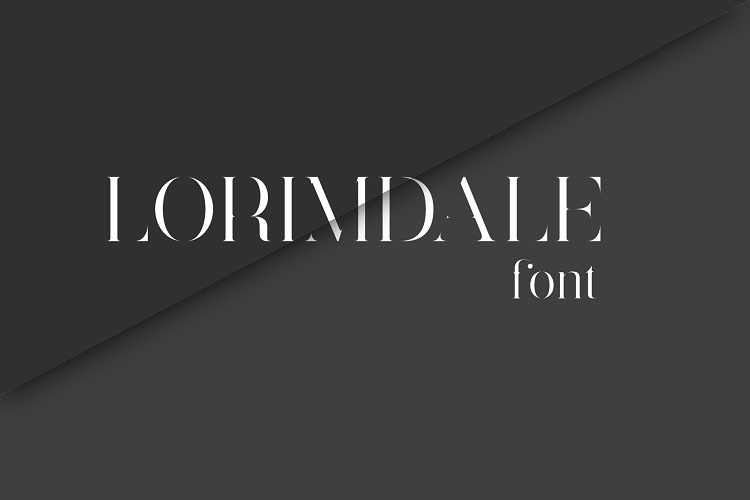
Lorimdale Font
Lorimdale Font is perfect for upscale village marketing, boutique winery branding, heritage countryside tourism, artisanal farm communications, traditional British pub signage, and charming rural hospitality venues. This distinguished typeface excels in countryside bed & breakfast promotions, local farmers market materials, village festival celebrations, and any application where pastoral elegance and rural sophistication create authentic connections with countryside charm.
What makes Lorimdale Font so exciting is its exceptional ability to capture the timeless elegance and pastoral beauty of English countryside villages through refined letterforms that embody traditional rural sophistication. The font features graceful curves, countryside proportions, and heritage character shapes that reflect the enduring charm of village life and rural craftsmanship. Its pastoral presence makes it perfect for brands celebrating authentic countryside traditions and rural excellence.
Lorimdale Font comes in a charming family including Light, Regular, Medium, Bold, and Manor weights. Each style features complete uppercase and lowercase character sets, countryside symbols, traditional numerals, and rural punctuation marks. The font family also includes village alternates, pastoral ligatures, and heritage variations that allow designers to create authentic countryside communications with rural sophistication and professional elegance.
This enchanting typeface transforms business communications into celebrations of countryside heritage and rural sophistication. Lorimdale Font Free Download provides rural businesses and countryside brands with essential typography that honors village traditions while serving contemporary hospitality needs. Whether you're developing brands for countryside tourism, creating materials for artisanal producers, or designing promotional content for rural hospitality venues, this font delivers authentic pastoral resonance with countryside charm.
The font's village character makes it particularly effective for countryside hotels, artisanal producers, heritage tourism companies, and traditional rural businesses. Its elegant readability ensures that Lorimdale Font communicates clearly while maintaining its distinctive pastoral personality. The font's ability to evoke tranquility and rural authenticity makes it an invaluable meadow for any project seeking to celebrate countryside heritage and connect with audiences through the timeless appeal of village life, rural craftsmanship, and the enduring beauty of pastoral traditions.